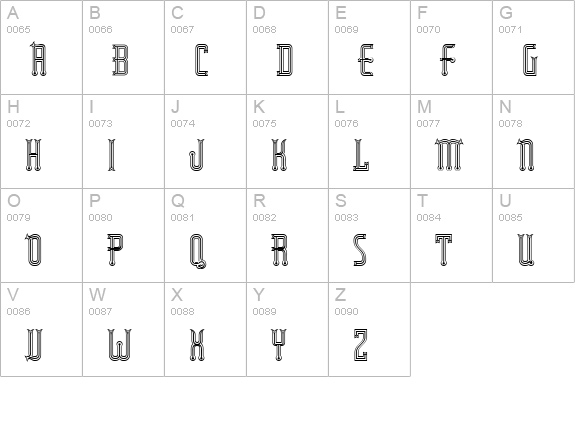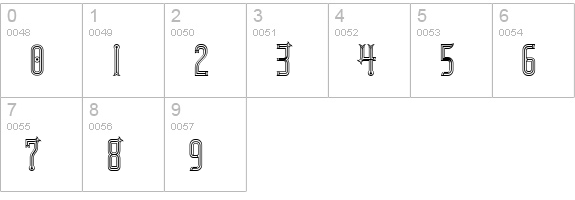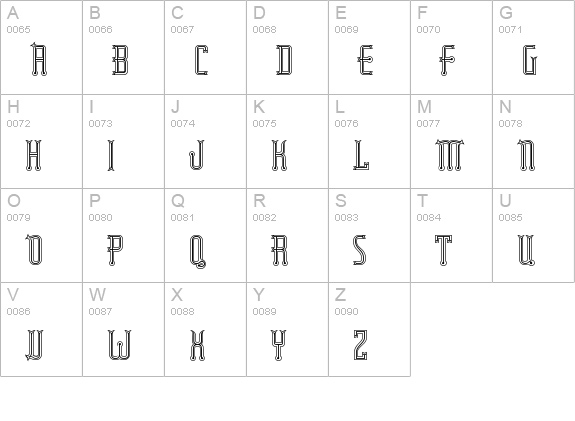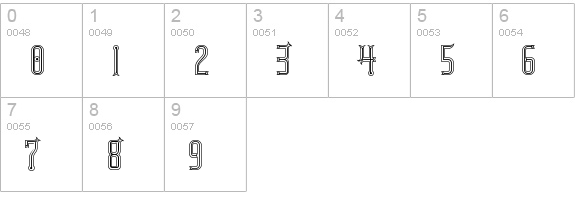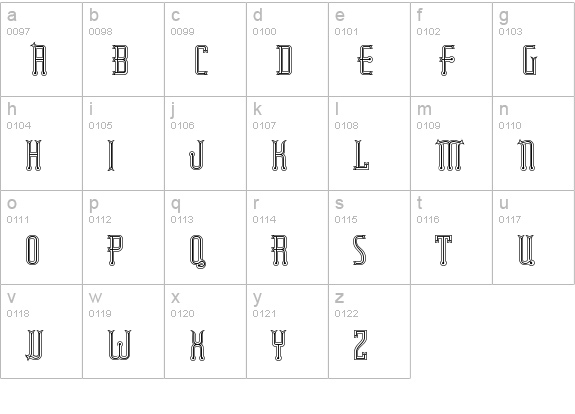
RubaiyatDouble Line Font Details
RubaiyatDouble Line font is a stylish and elegant typeface that exudes sophistication and modernity. Its unique double-line design gives it a contemporary and eye-catching look, making it perfect for a wide range of design projects. The clean lines and smooth curves of this font make it versatile and easy to read, making it a great choice for both print and digital designs. What's even better is that RubaiyatDouble Line font is available for free download at FontsMarket.com. This means you can easily access and use this beautiful font in your projects without any cost. Whether you're designing posters, logos, websites, or any other creative work, RubaiyatDouble Line font is sure to add a touch of elegance and sophistication. Download it today and elevate your designs with this stunning typeface.